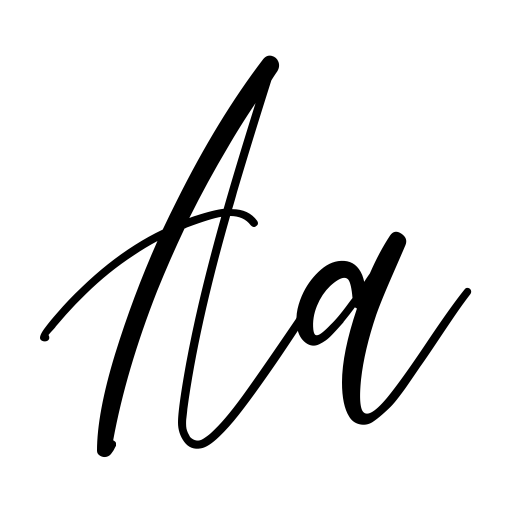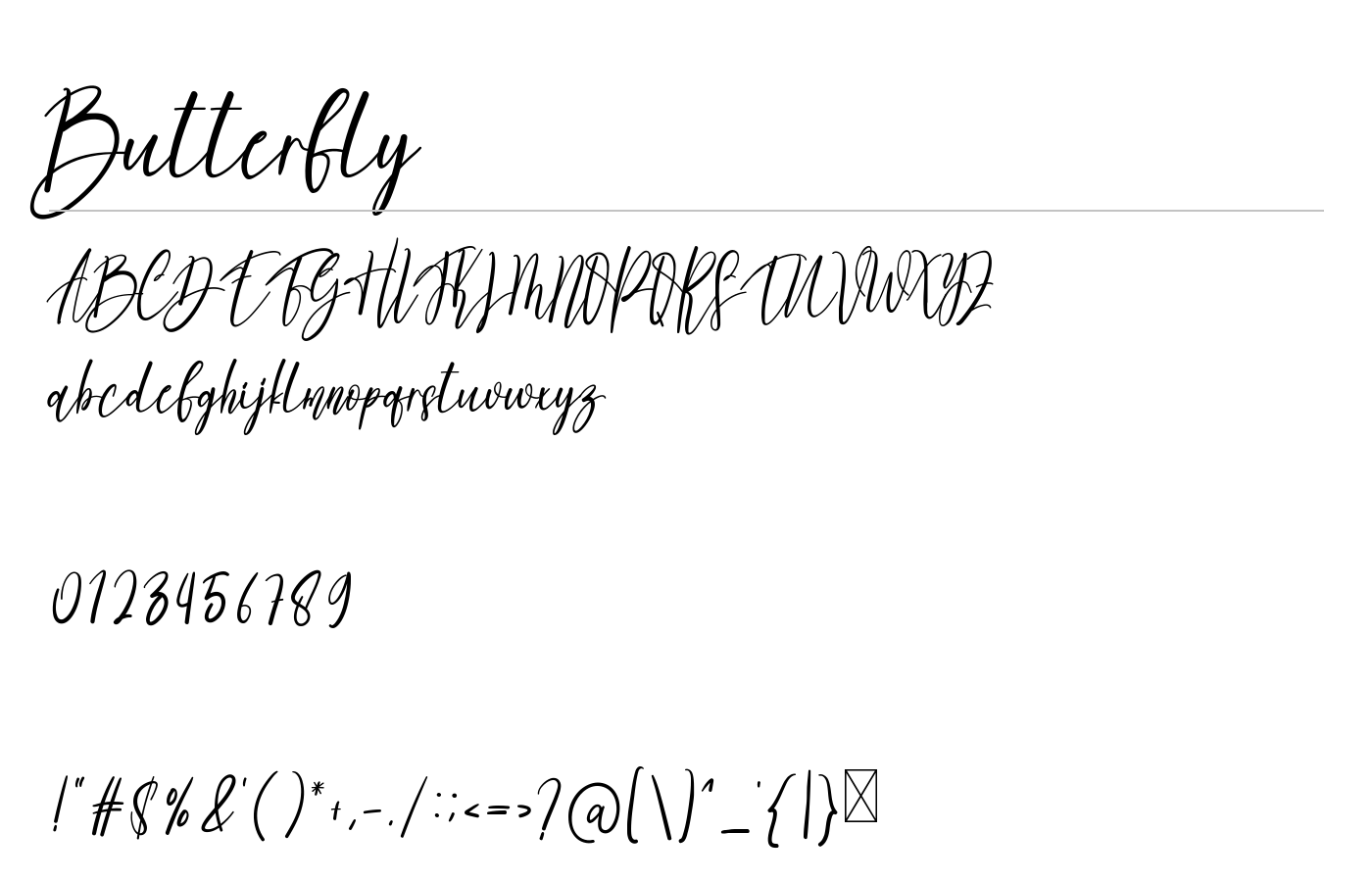
Butterfly Font is a delicate and elegant script typeface with a handwritten, flowing style that features slender, graceful strokes and a natural, airy feel. Its tall, narrow letterforms and fine contrast make it perfect for adding a romantic, personal touch to invitations, branding, or logos where a sophisticated yet approachable look is desired. This font works beautifully in designs that aim to convey elegance and creativity while maintaining readability.
Butterfly Font
About Butterfly Font